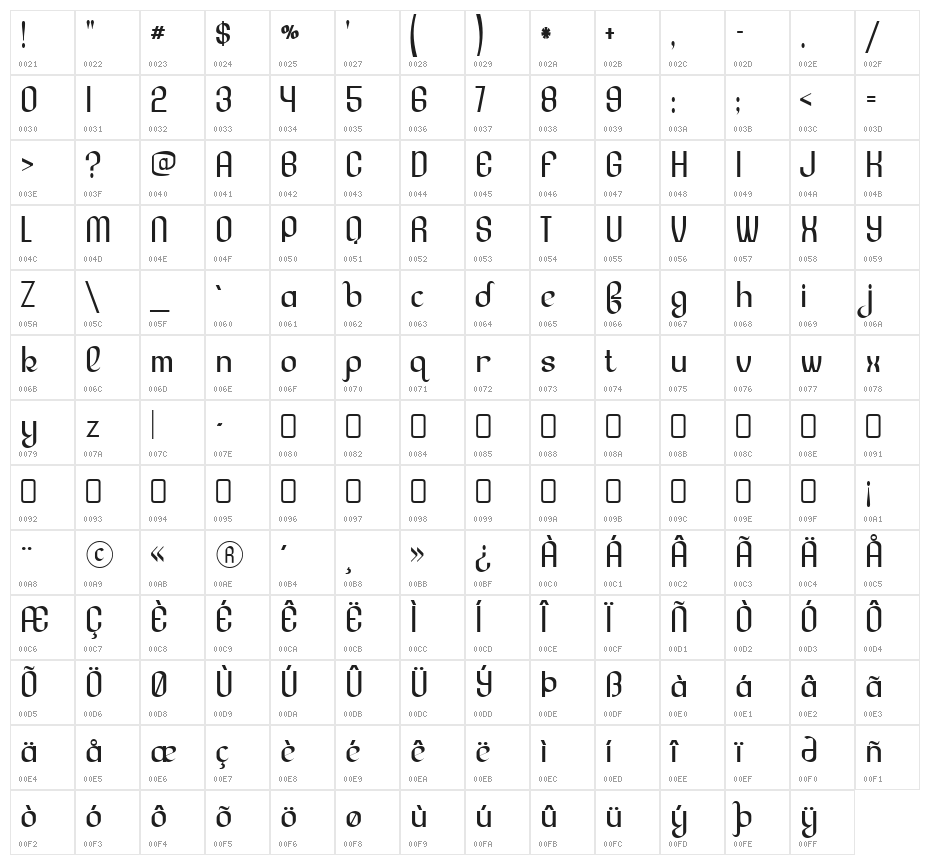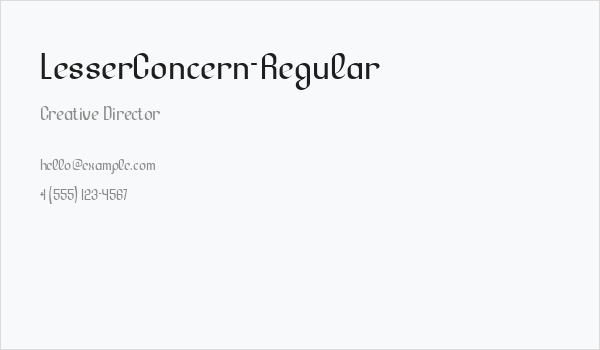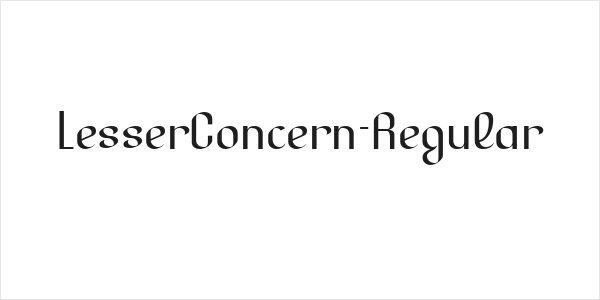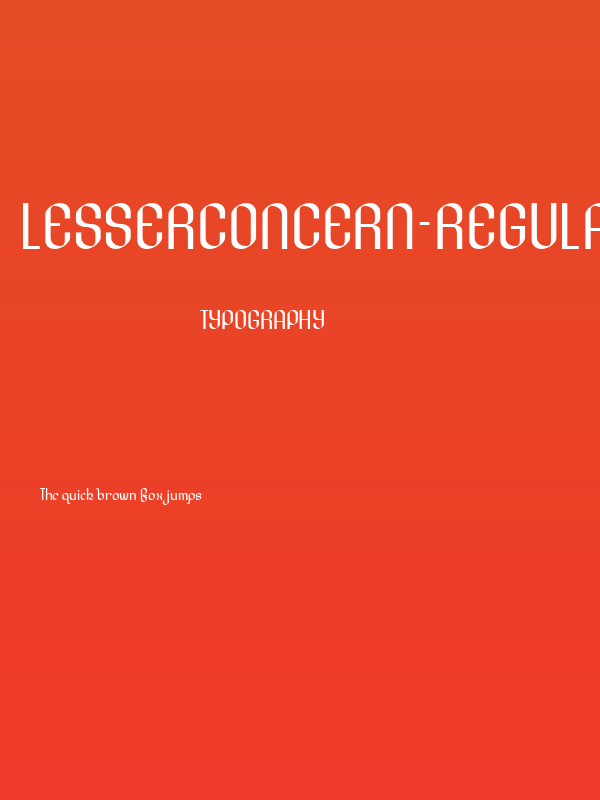
LesserConcern-Regular Font
LesserConcern-Regular Description
This font features a unique blend of modern and vintage elements, characterized by its tall, narrow letterforms with rounded edges and subtle curves. The uppercase letters exhibit a distinct geometric style, while the lowercase letters maintain a playful yet sophisticated appearance. The numerals are consistent with the overall design, offering a clean and readable aesthetic. Special characters are thoughtfully integrated, maintaining the font's cohesive look. Its balanced proportions and smooth lines make it suitable for a variety of design applications.
| Width | Condensed |
| Overall Style | Modern, Vintage |
| Proposed Projects | Ideal for branding, packaging, posters, and editorial design where a modern yet classic touch is desired. |